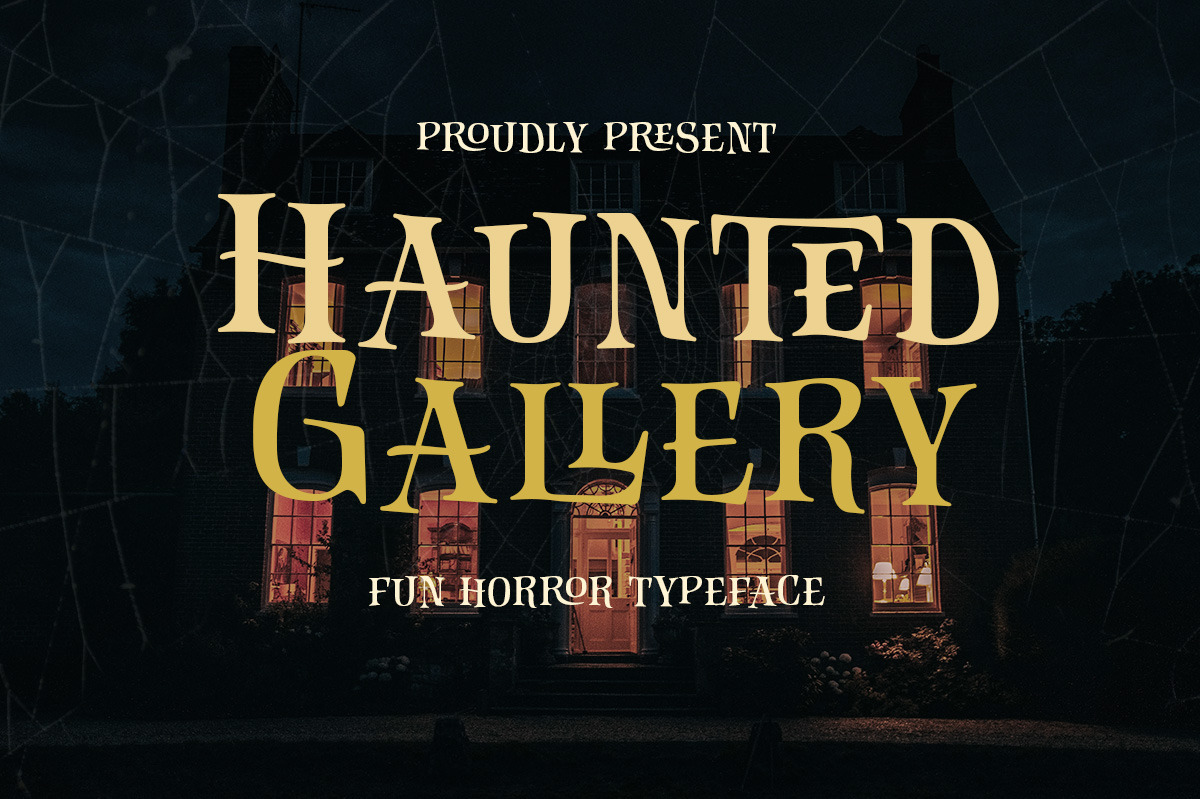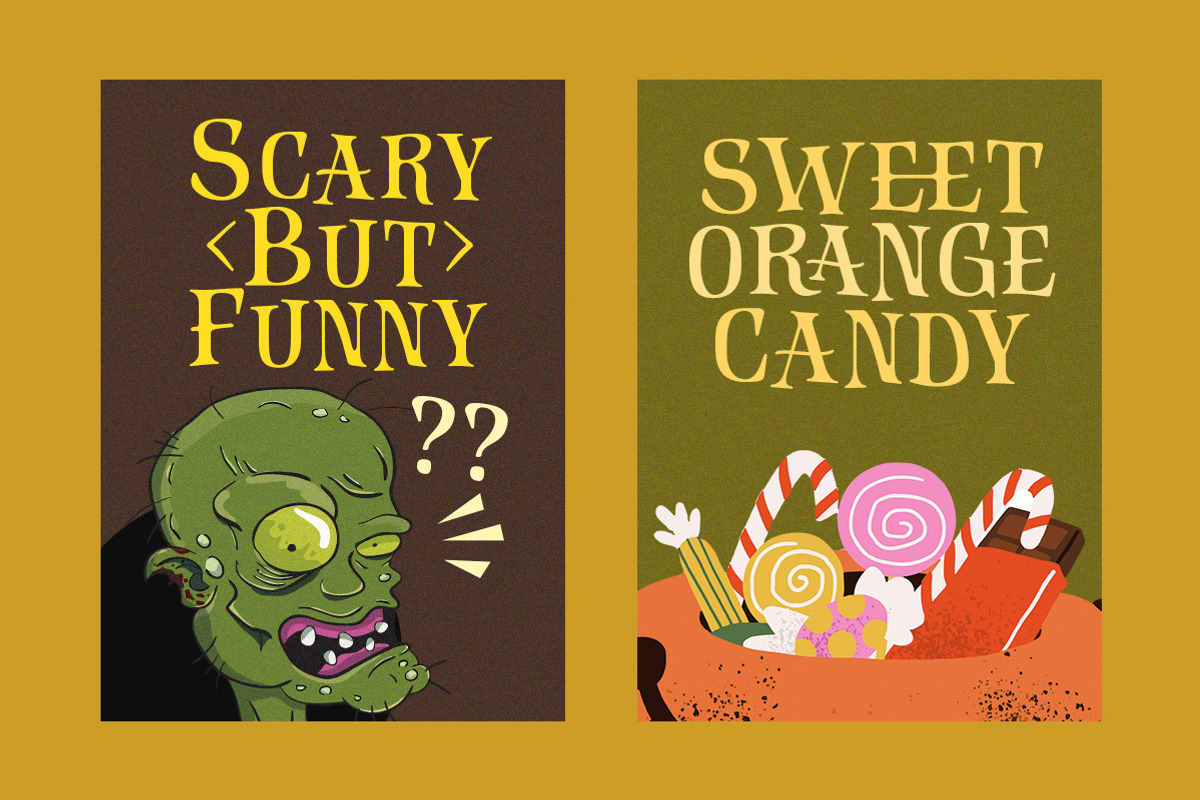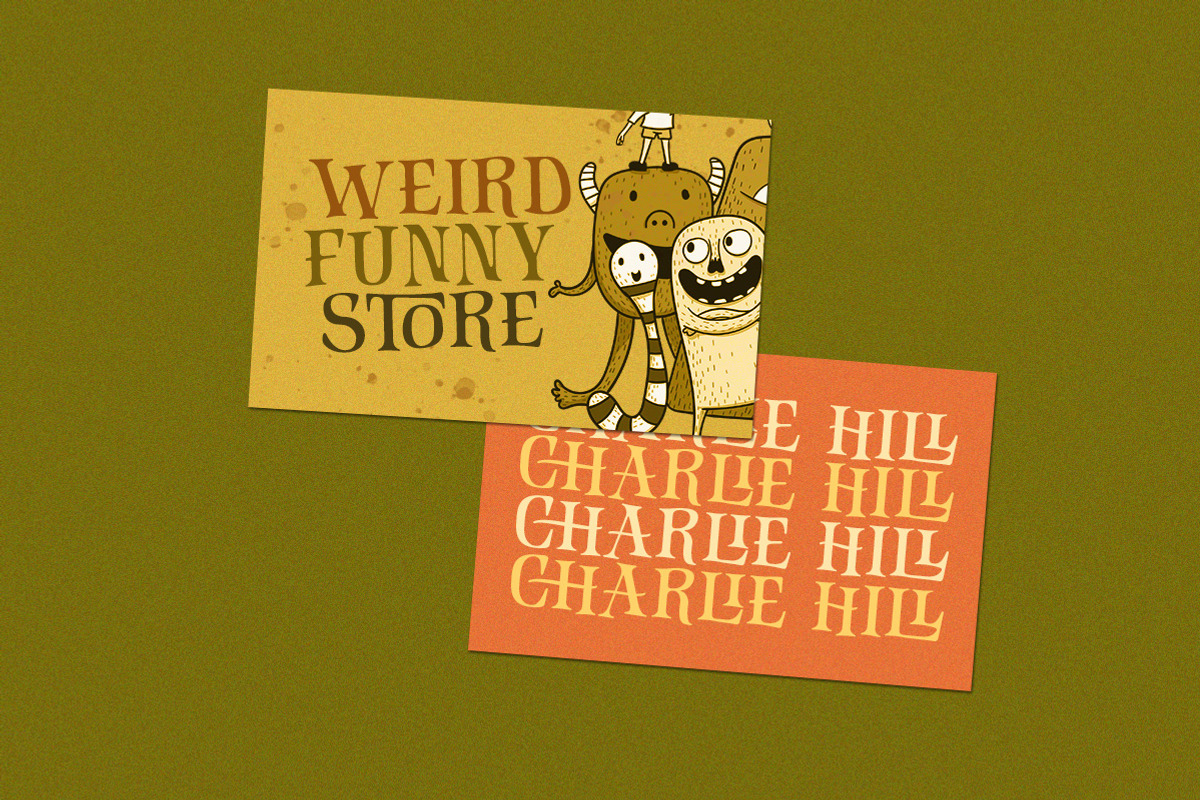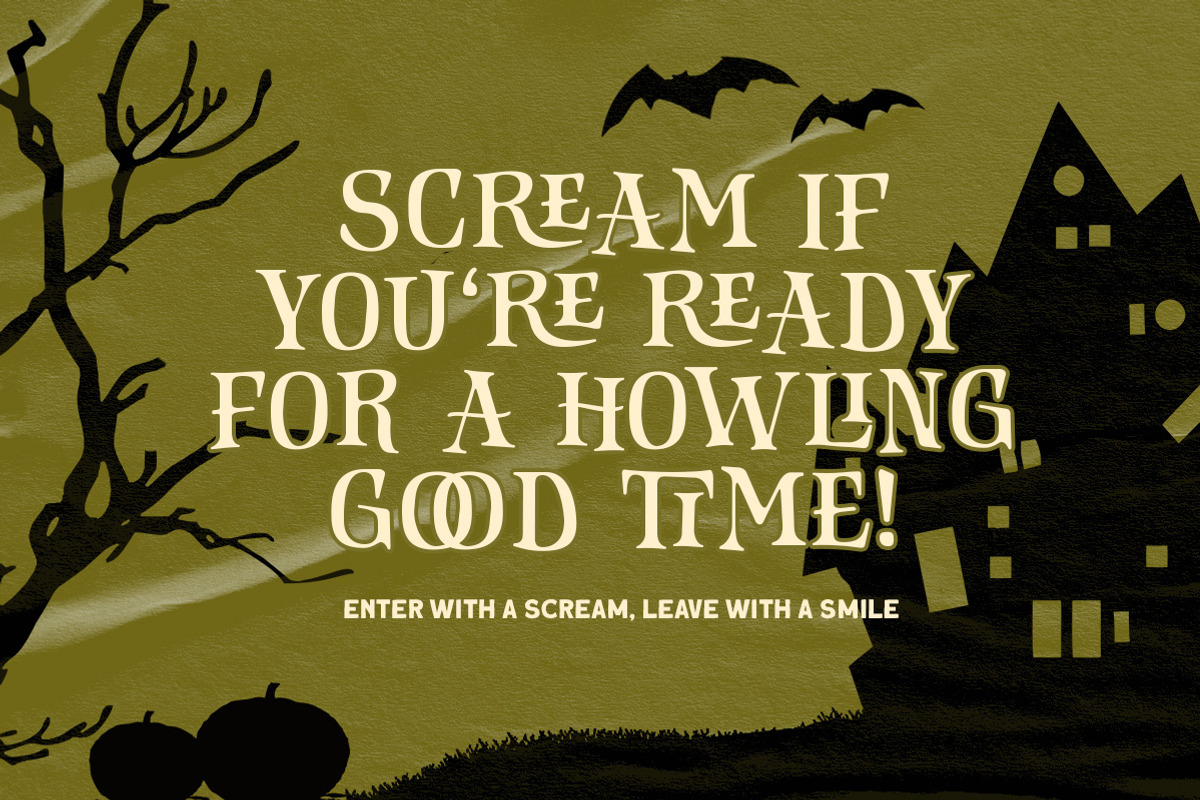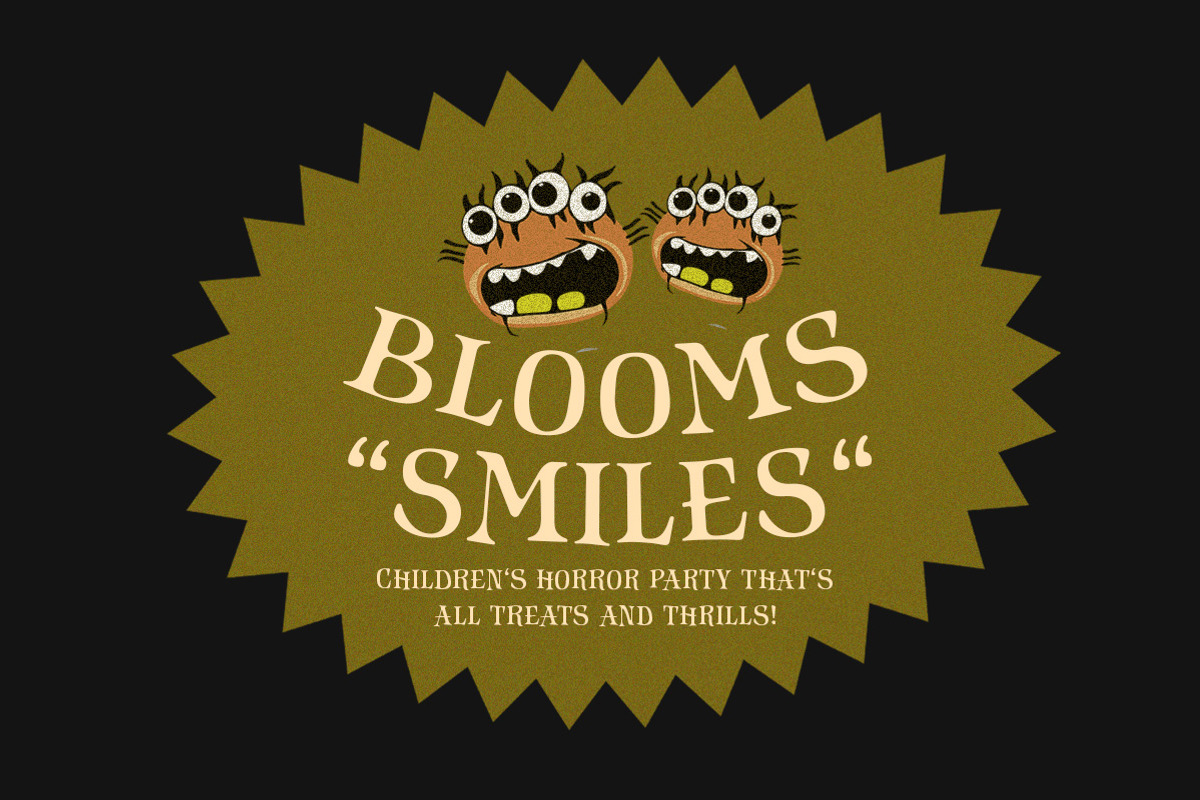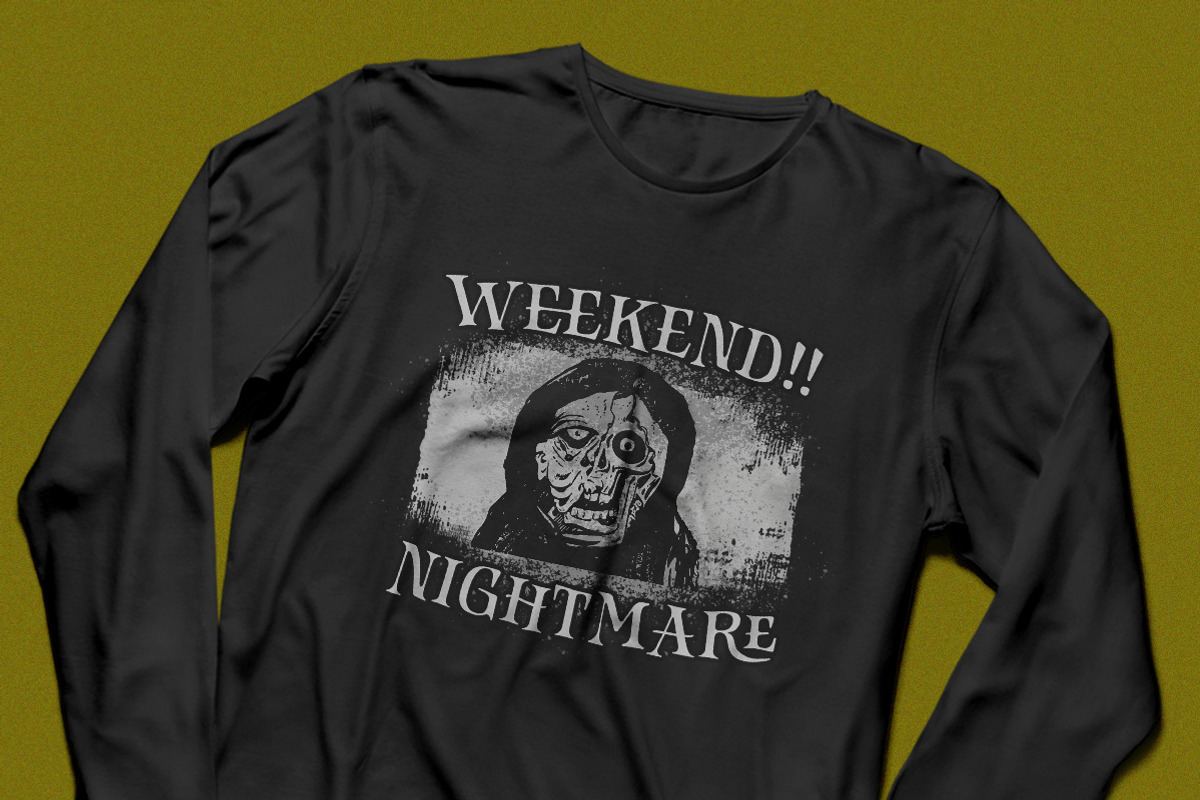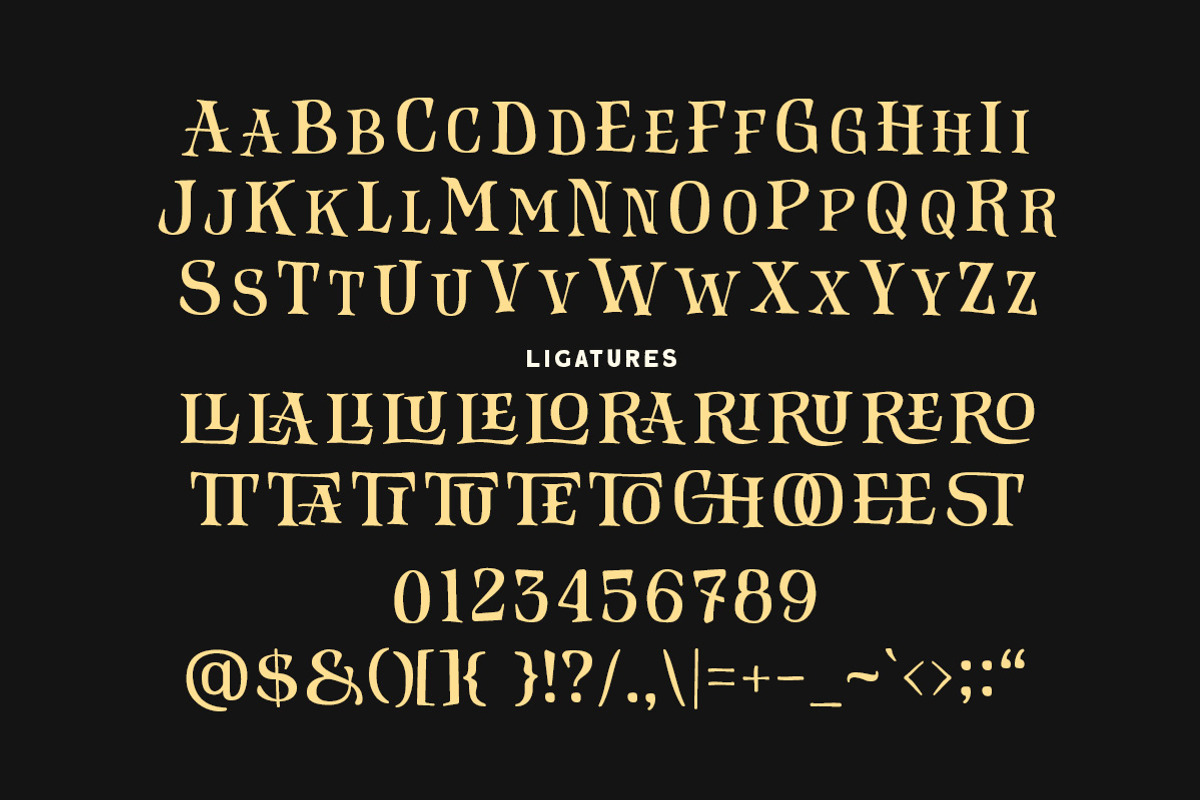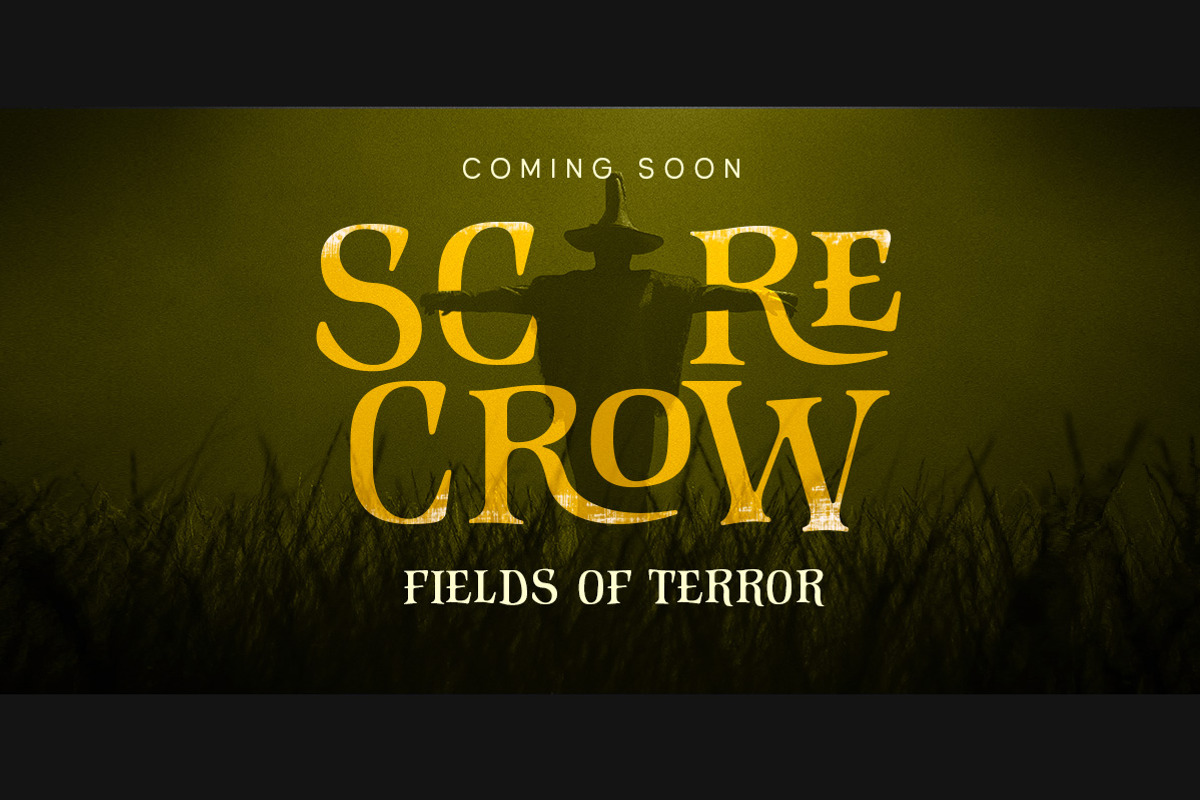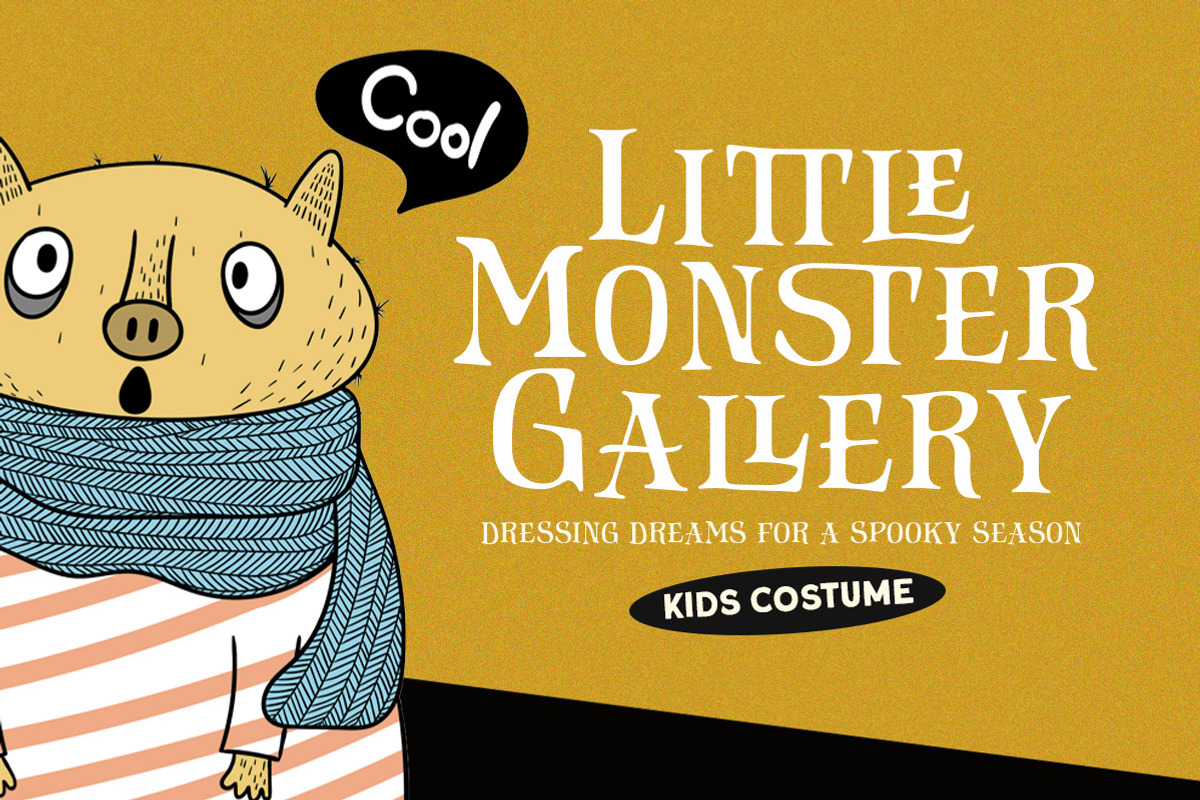
Haunted Gallery - Fun Horror Font
Haunted Gallery is a fun horror typeface with classic letterform. You can play around with the ligatures. This font perfectly made to be applied especially in logo, and the other various formal forms such as invitations, labels, logos, magazines, books, greeting / wedding cards, packaging, fashion, make up, stationery, novels, labels or any type of advertising purpose.